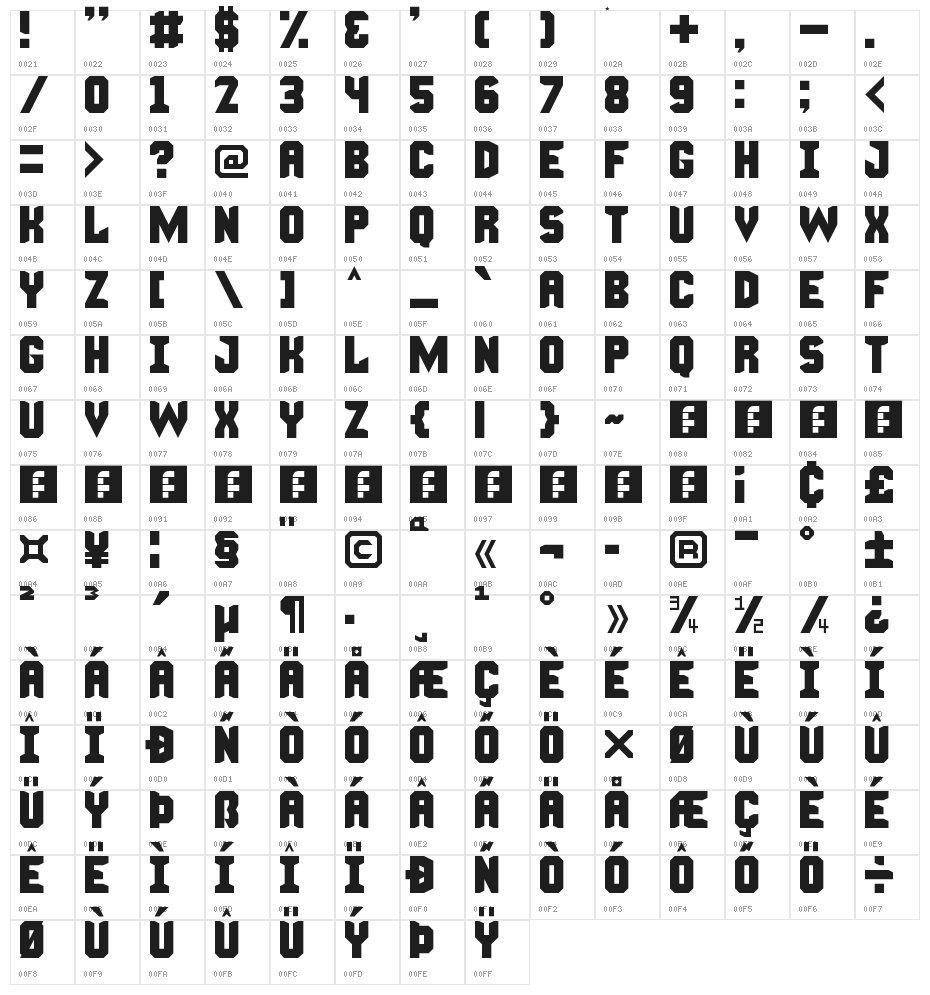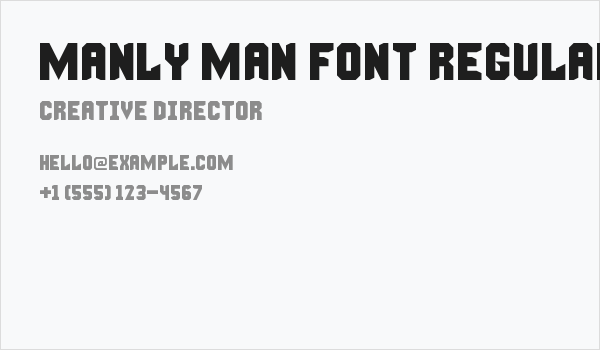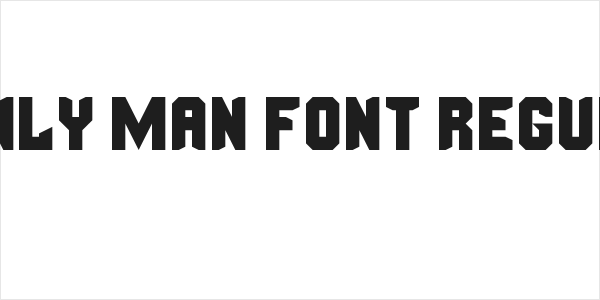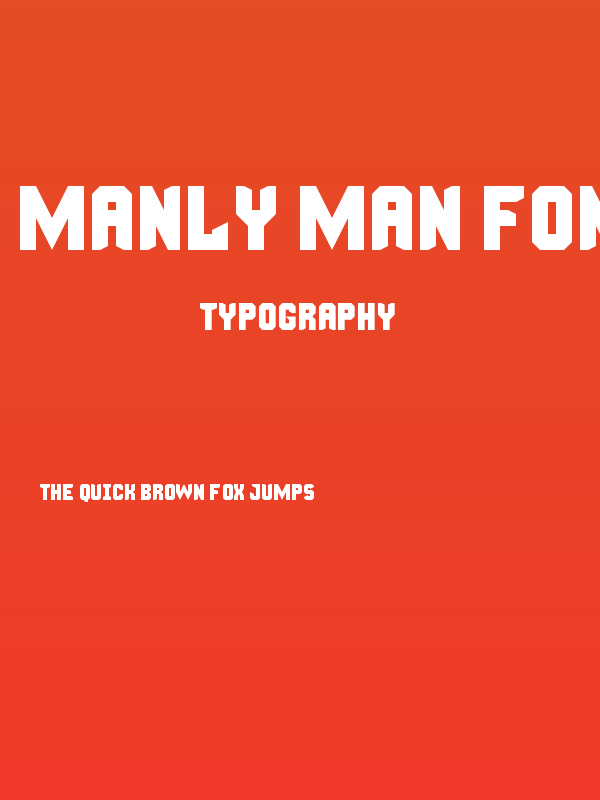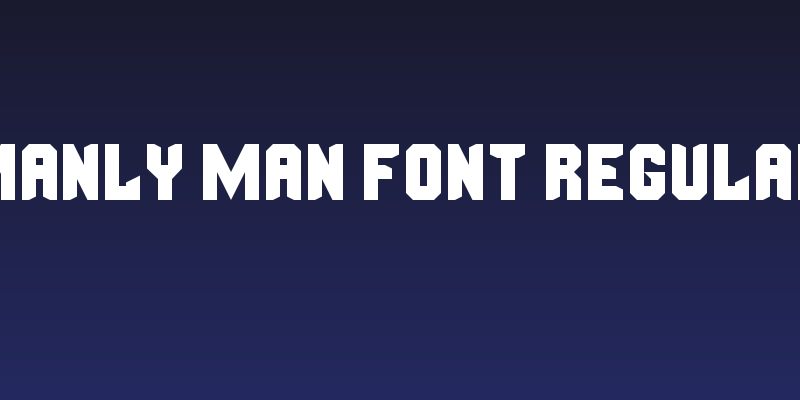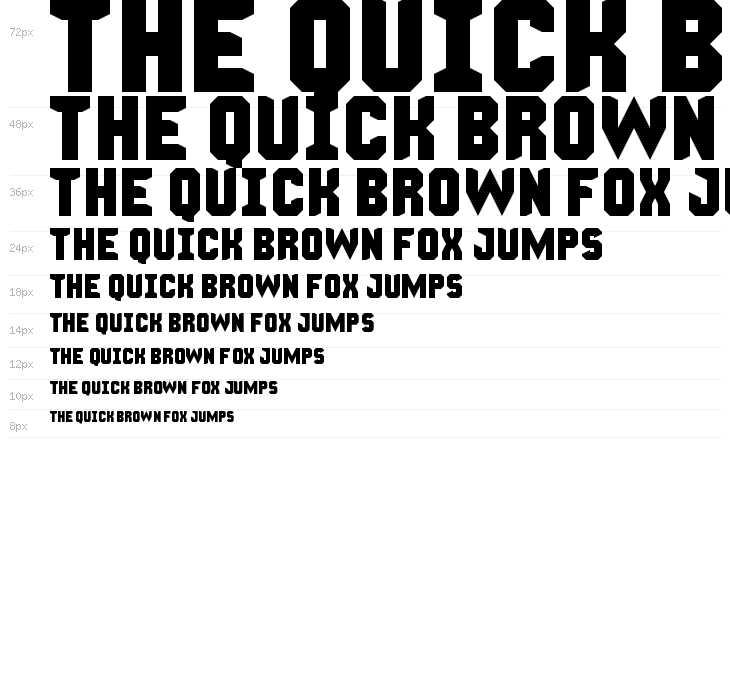
Manly Man Font Regular Font
Manly Man Font Regular Description
This font features a bold and robust design with a strong geometric structure. The characters are blocky and angular, giving a sense of strength and masculinity. The uppercase letters are particularly prominent, with sharp edges and a uniform thickness that conveys a sense of power and authority. The numbers and special characters maintain this bold aesthetic, ensuring consistency across all glyphs. The font's design is reminiscent of industrial or sports-themed styles, making it suitable for projects that require a commanding and impactful visual presence.
| Proposed Projects | Ideal for sports branding, industrial design, posters, and headlines that require a bold statement. |